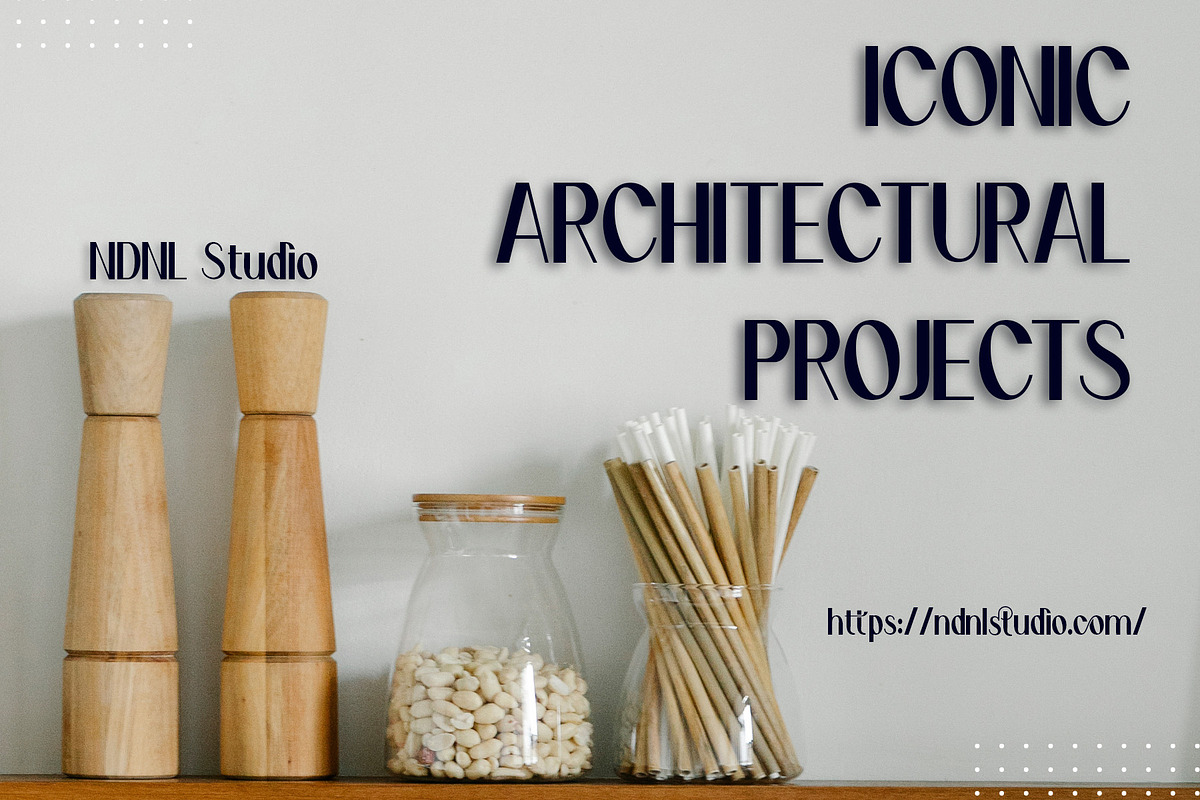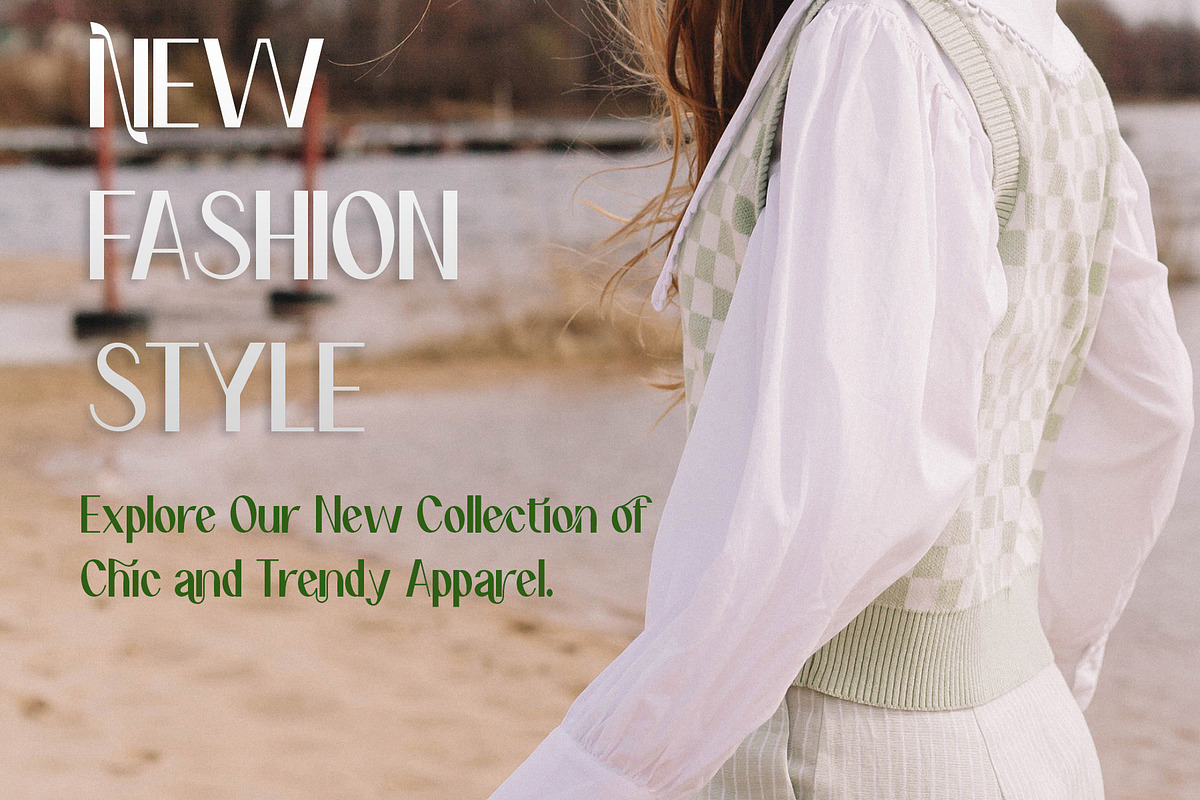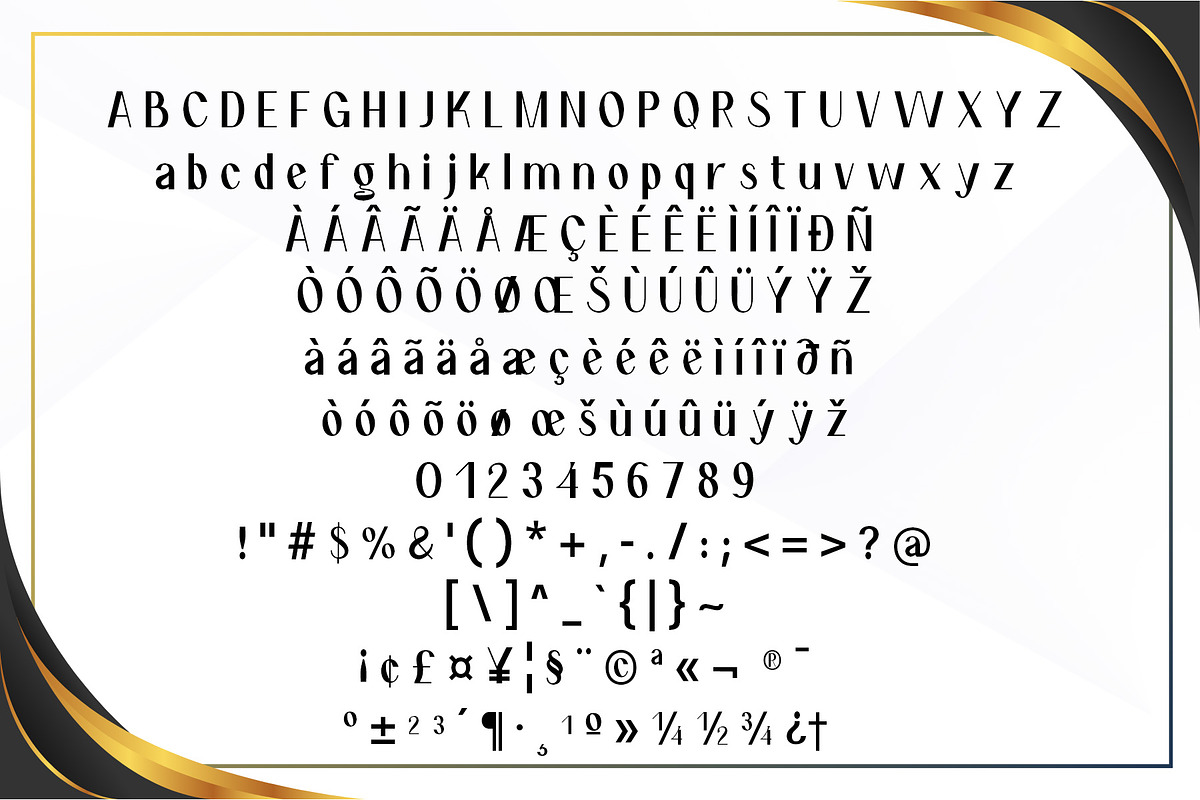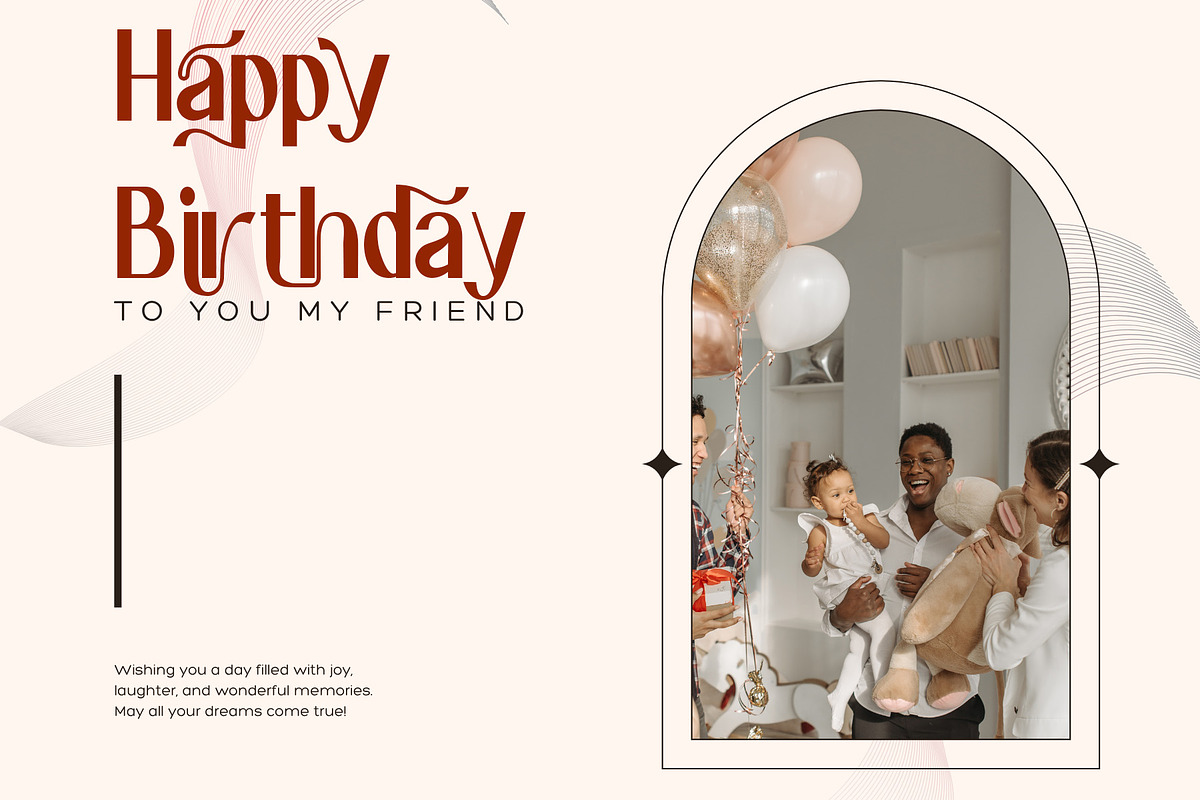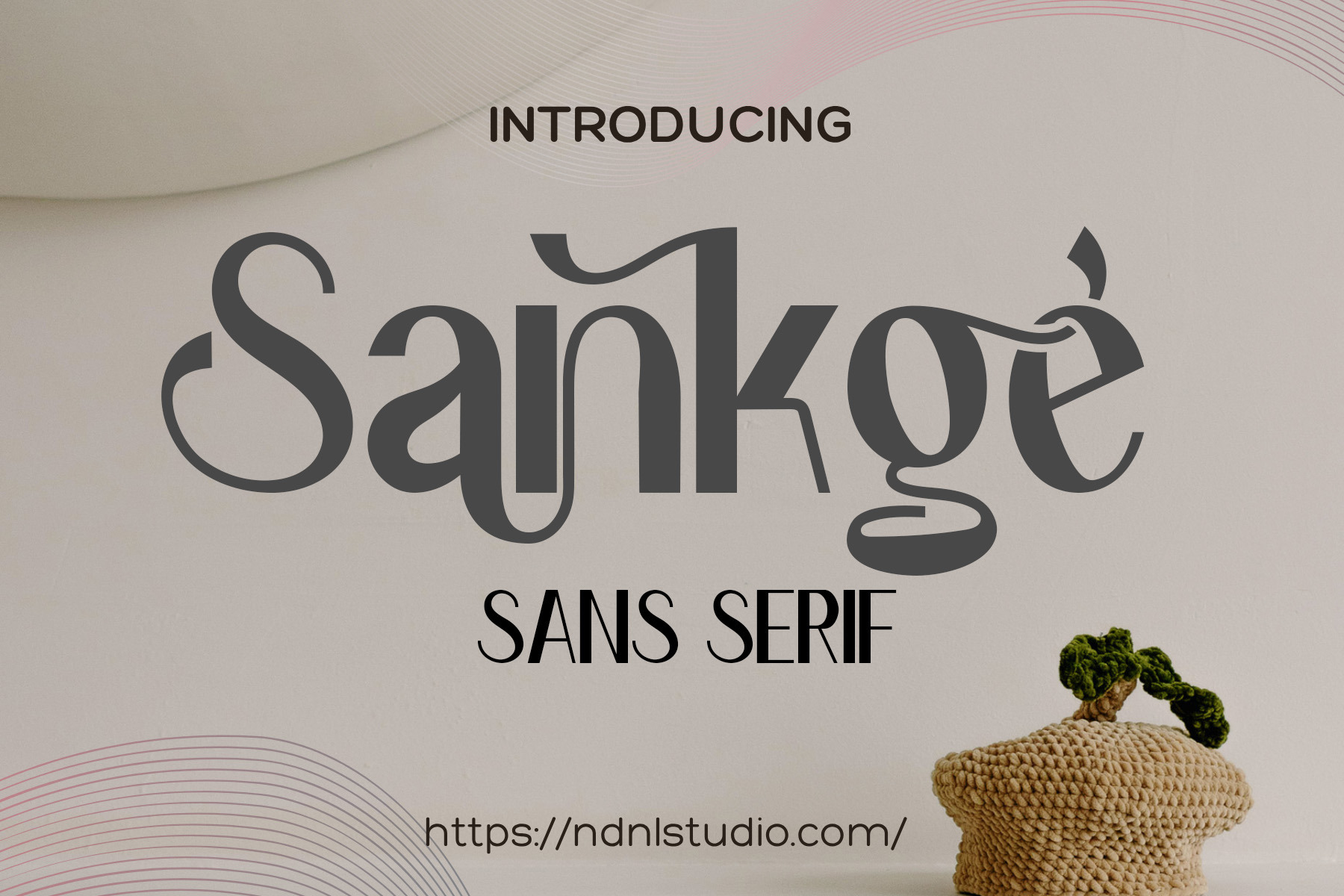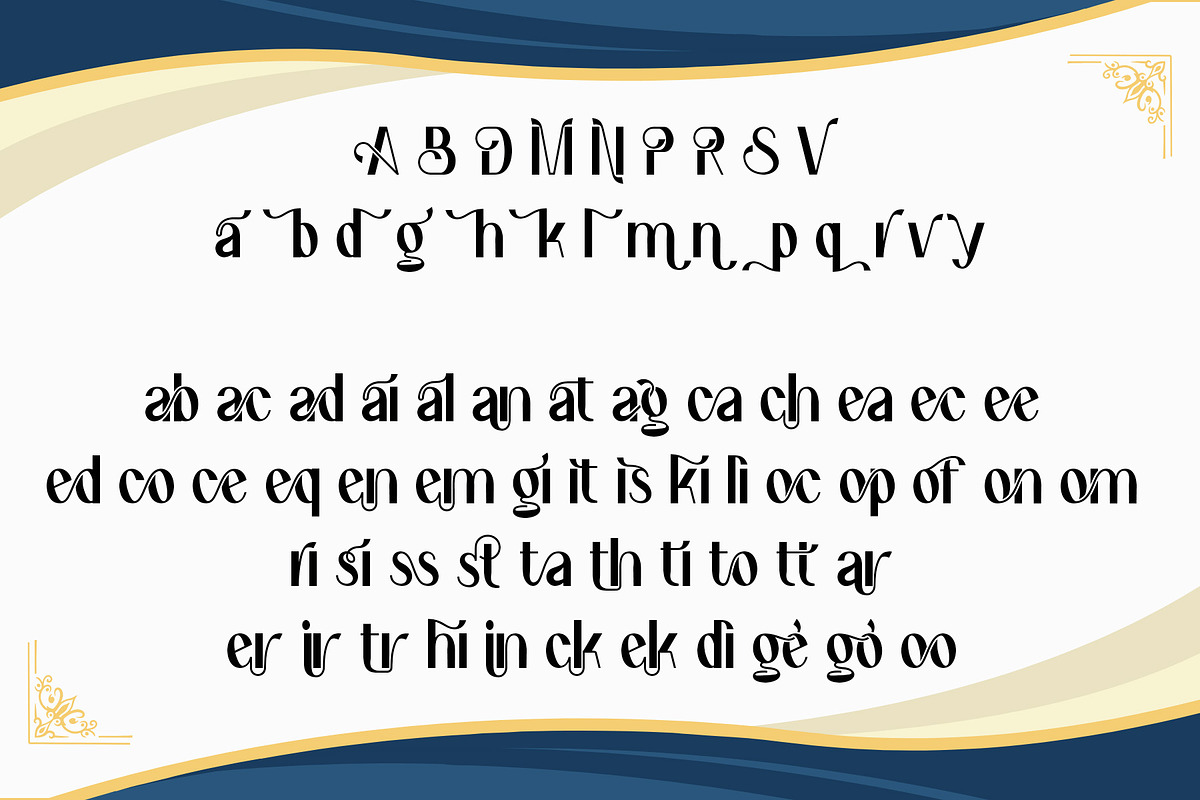
Sankge – Sans Serif Font
Introducing Sankge !
Sankge is a unique sans serif typeface that blends modern elegance with artistic curves. Its distinctive letterforms and stylish alternates make it perfect for branding, packaging, logos, posters, and creative projects. Designed to stand out, Sankge brings both sophistication and personality to your typography, making every word a statement.
- Character set A-Z